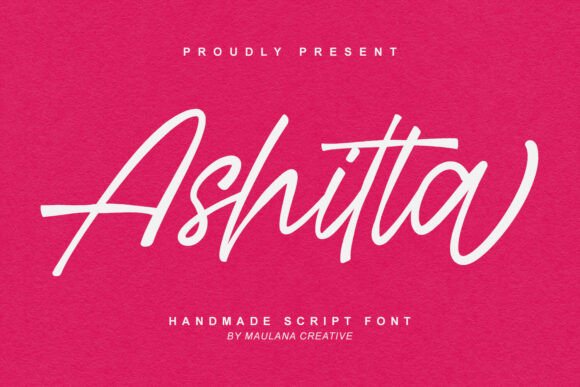
The Designer’s Delight: Falling in Love with Ashitta Font
I still remember the design project that led me to discover Ashitta Font. I was working on a branding project for a luxury boutique hotel, and I was struggling to find the perfect font that would capture the essence of elegance and sophistication. The client was particular about the font style, and I had to ensure that it was both classy and modern. After hours of searching, I stumbled upon Ashitta Font, and it was love at first sight!
Ashitta is an exquisite handwritten font, masterfully designed to become a true favorite. It maintains its classy calligraphic influences while feeling contemporary and fresh. In this article, I’ll share my experience with Ashitta Font, its features, and how to make the most of it in your designs.
An Honest Review of Ashitta Font
What I Love About Ashitta Font
- ✨ Exquisite handwritten style with a touch of elegance
- ✅ Classy calligraphic influences that evoke a sense of sophistication
- 🎉 Contemporary and fresh feel that’s perfect for modern designs
- 💻 Highly versatile and can be used for various design projects, from branding to packaging
While Ashitta Font is an excellent choice for many design projects, there are a few quirks to be aware of:
- 🤔 Limited availability of certain glyphs and special characters
- ⚠️ May not be suitable for very small font sizes due to its intricate design
The Backstory of Ashitta Font
Ashitta Font was designed by a team of skilled typographers who aimed to create a font that would capture the essence of elegance and sophistication. The font’s design is inspired by traditional calligraphy, with a modern twist that makes it perfect for contemporary designs. The designers spent countless hours perfecting the font’s curves, lines, and details to ensure that it would be a versatile and reliable choice for designers.
Q: What is Ashitta Font?
A: Ashitta Font is a beautiful handwritten font with a classy calligraphic influence and a modern feel.
Q: What design projects is Ashitta Font suitable for?
A: Ashitta Font is versatile and can be used for various design projects, including branding, packaging, and advertising.